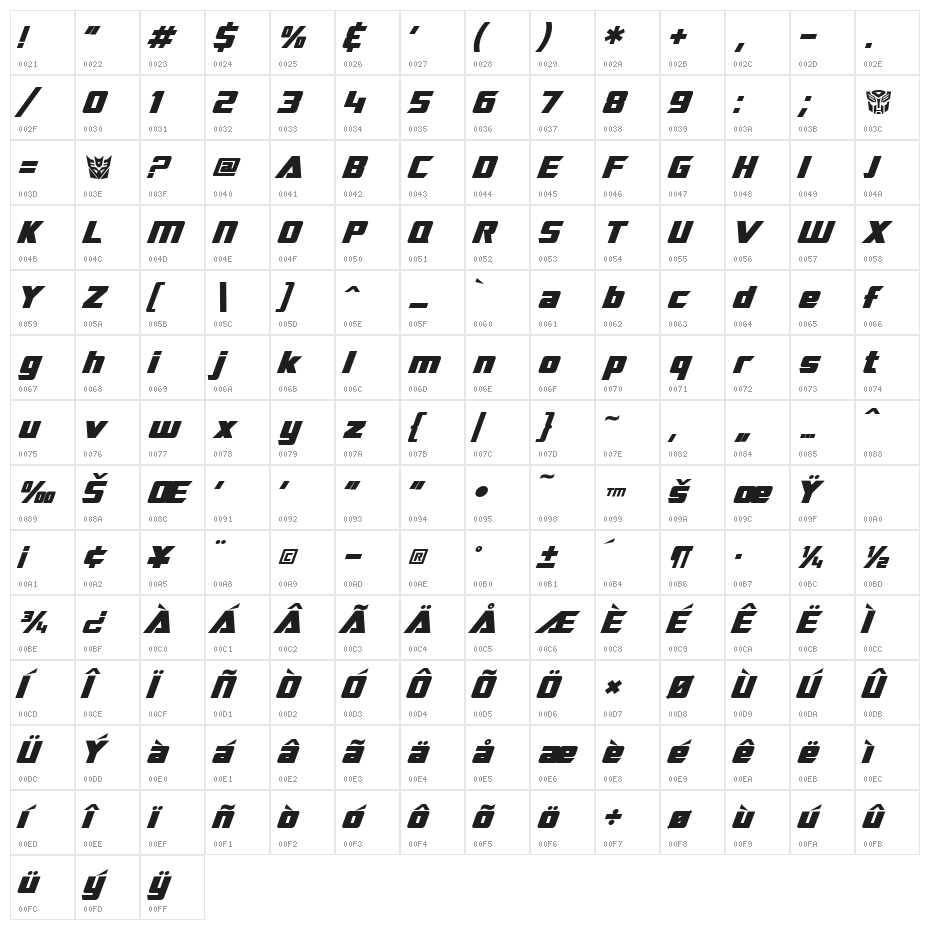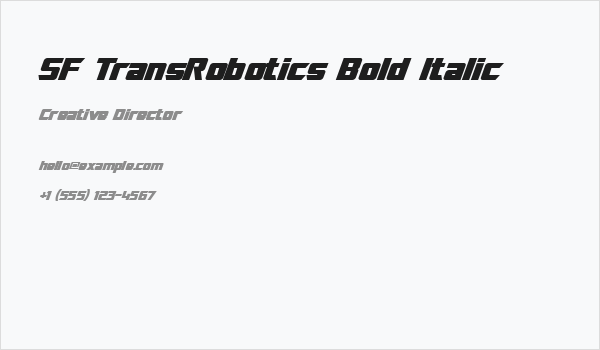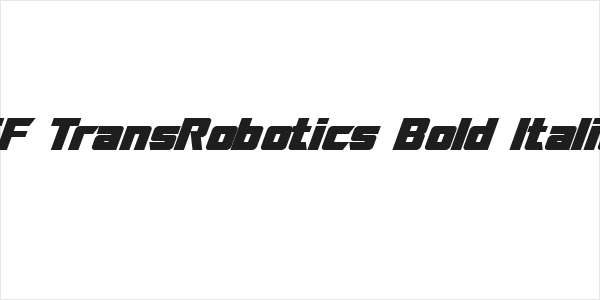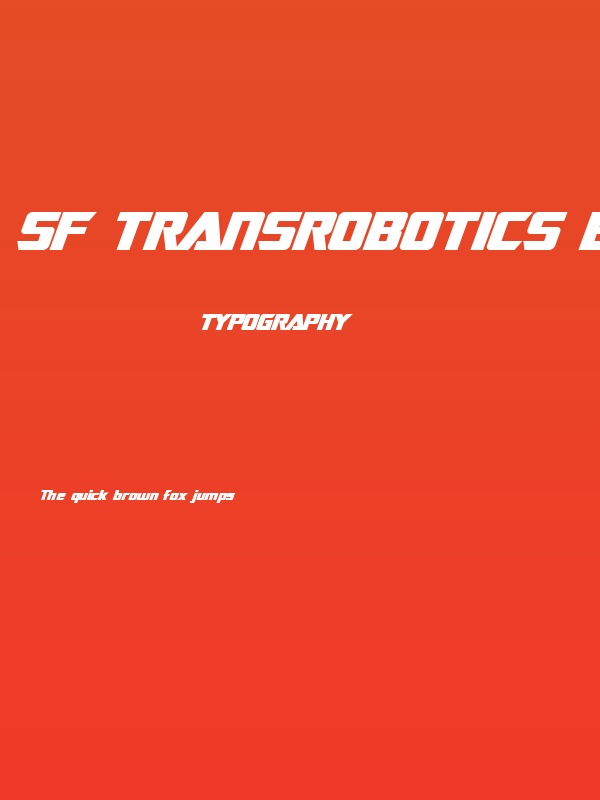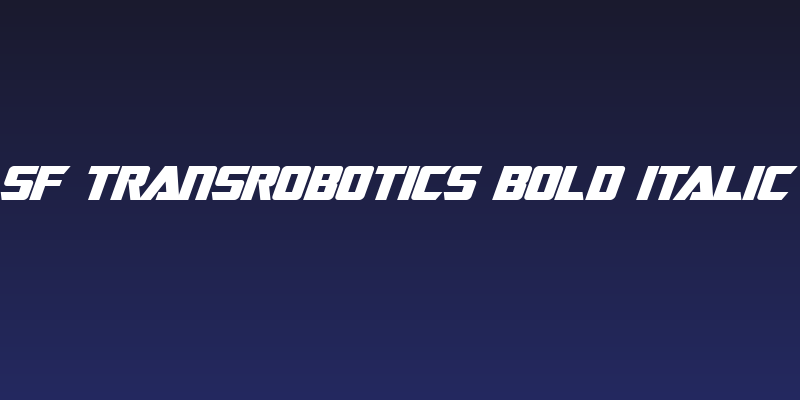
SF TransRobotics Bold Italic Font
SF TransRobotics Bold Italic Description
This font features a bold and italicized style with a futuristic and angular design. The characters are sharply defined with a strong geometric influence, giving it a dynamic and modern appearance. The uppercase and lowercase letters maintain a consistent slant, enhancing the italic effect. The numerals and special characters follow the same design principles, ensuring uniformity across all glyphs. The font's bold weight and italic style make it stand out, suitable for attention-grabbing headlines or logos. Its unique style is reminiscent of technology and robotics, making it ideal for projects that require a modern and edgy look.
| Proposed Projects | Ideal for technology branding, sci-fi movie posters, video game titles, and modern advertising campaigns. |